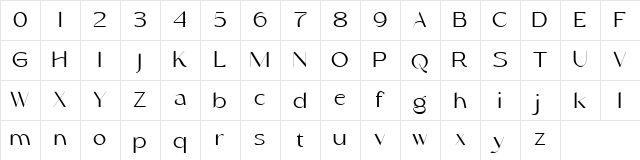
Chefira Regular
Foundry: Kerismaker
Designer: Keristyper Team
Design Context for Chefira
Chefira is a composed and adaptable typeface that performs quietly and consistently across a wide range of design contexts.